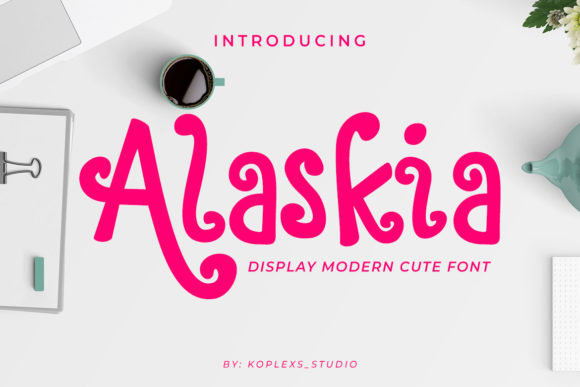
The Alaskia Font: Elevate Your Designs with Elegance
I’ll never forget the moment I stumbled upon the Alaskia font. I was working on a project for a client who wanted a sophisticated, yet modern look. I had spent hours scouring the internet for the perfect font, but nothing seemed quite right. That was until I saw Alaskia – its elegant, handwritten strokes immediately caught my eye. I knew right then and there that I had found the one.
An Honest Review of Alaskia
- ✨ Elegant and classy: Alaskia’s calligraphic influences give it a sophisticated feel that’s perfect for high-end projects.
- ✅ Contemporary and fresh: Despite its classic roots, Alaskia feels modern and on-trend, making it versatile for a wide range of designs.
- 💫 Highly legible: The font’s clear and flowing strokes ensure that your text remains easy to read, even at smaller sizes.
While Alaskia is an exceptional font, there are a few minor things to keep in mind:
- 🤔 Limited use of all-caps: While Alaskia’s uppercase letters are beautiful, they can feel a bit ornate for longer blocks of text. Use them sparingly for headings or emphasis.
The Story Behind Alaskia
Alaskia was designed by a team of typographers who wanted to create a font that combined classic elegance with modern flair. Inspired by the rugged beauty of Alaska’s landscapes, they crafted a font that’s both refined and adventurous. The result is Alaskia – a versatile, sophisticated font that’s perfect for a wide range of creative projects.
| Font Name | Alaskia Font |
| Author | Koplexs Studio |
Q: What type of projects is Alaskia best suited for?
A: Alaskia is a versatile font that can be used for a wide range of projects, from branding and marketing materials to editorial design and packaging.
Q: Does Alaskia support OpenType features?
A: Yes, Alaskia supports OpenType features, including stylistic alternates, glyphs, and ligatures. This allows you to create complex, visually appealing text arrangements.
Q: Is Alaskia suitable for body text?
A: While Alaskia is a beautiful font, it’s best suited for headings, titles, and short blocks of text. For longer body text, you may want to choose a font with better readability at smaller sizes.